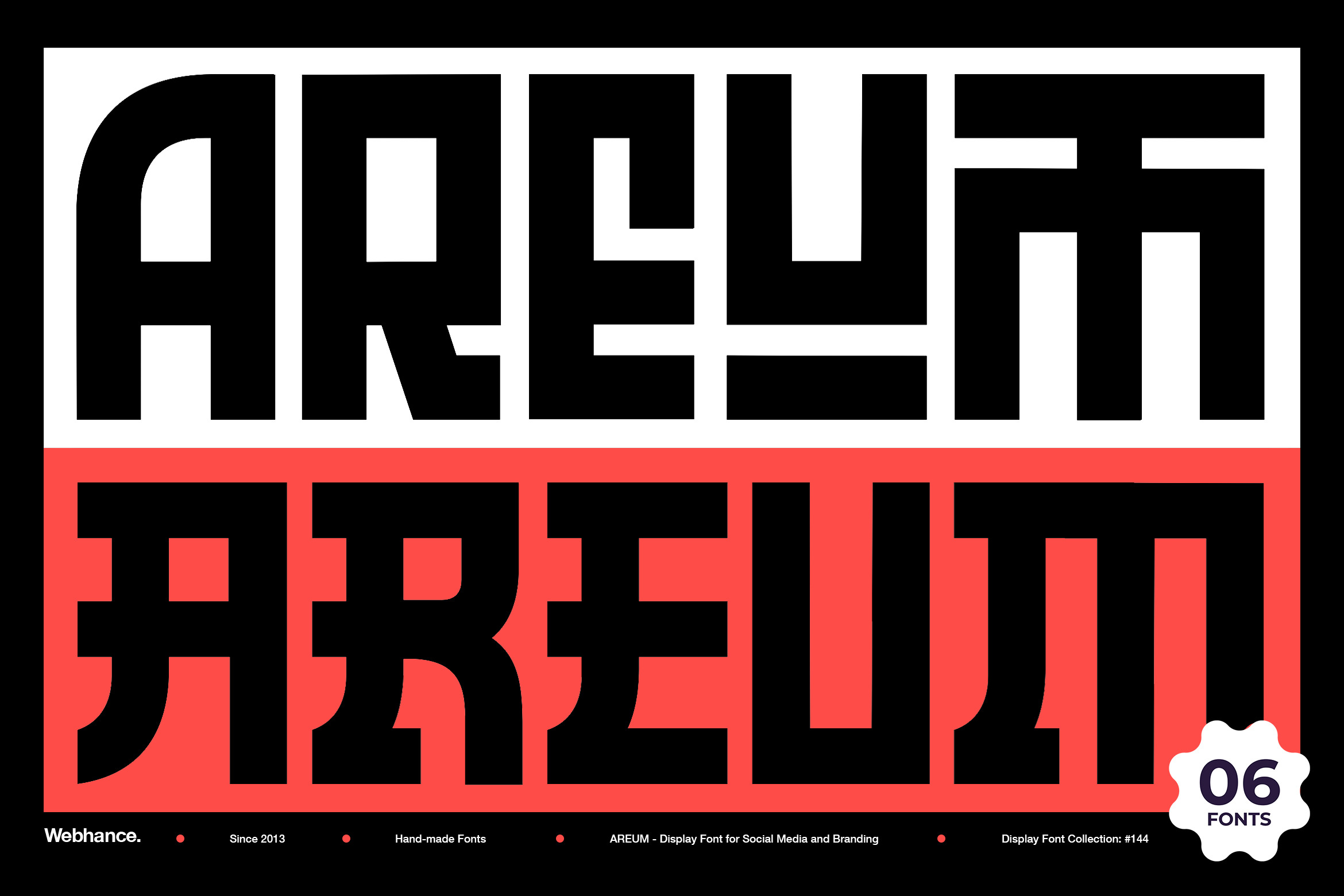
AREUM Display Font
AREUM Display Font – Three Styles. One Identity.
AREUM is a bold, modular display typeface inspired by the clean geometry and structured elegance of Korean Hangul characters. The name “Areum” (아름) means “beauty” in native Korean—perfectly reflecting the font’s fusion of cultural depth and modern design.
Crafted with square forms and architectural balance, AREUM is ideal for use in branding, poster headlines, album covers, editorial layouts, and projects where strong visual identity is key. The design draws from traditional Korean aesthetics and grid-based structure, creating a powerful, minimalistic impact.
This font family includes three main styles (Regular, Edge, and Horizon) plus their italics—for a total of 6 fonts—offering flexible typographic combinations that range from clean and minimal to bold and expressive.
With 100+ language support, AREUM is designed to communicate beauty across cultures.
- Uppercase letters
- Punctuations
- Glyph Count: 200+
- OpenType Features: kern, mark, mkmk